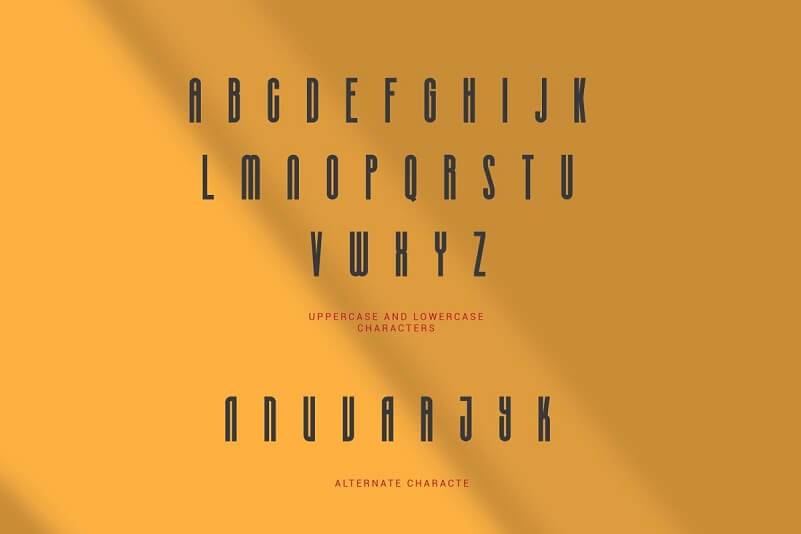
Silver Crown Display Font
Silver Crown Display Font is now available. It has a beautiful, elegant, and classy appearance. When looking at a group of characters, there is a lot of contrast in terms of style and practice. It’s a display typeface by the Linecreative creator. The typeface has a sans serif flavour to it, making it ideal for any work that requires a sans serif font. The font also includes upper and lowercase letters, making it more versatile for use in a variety of applications.
There are a lot of ligatures in this typeface. There are 121 characters in total, with nine stylistic variants. The typeface can be used in a variety of languages, including Latin and Western European languages. There are also numerous numbers and punctuation in the font. This font belongs to the regular subfamily. While working, you may need to change your font to a web font, and the beautiful thing about this font is that you may do so easily. The typeface comes in two different formats: TTF and OTF.
Silver Crown Font is a condensed font with minimal characters that is ideal for logos, name cards, magazine layouts, headers, and large-scale artwork. The typeface is a narrow Display font that is ideal for use in the body paragraph of sport or finesse magazines. This typeface can also be used in large headlines in any article or publication. The typeface has a lovely feel, making it ideal for use in commercials and presentations. This font is ideal for projects that require individuality.